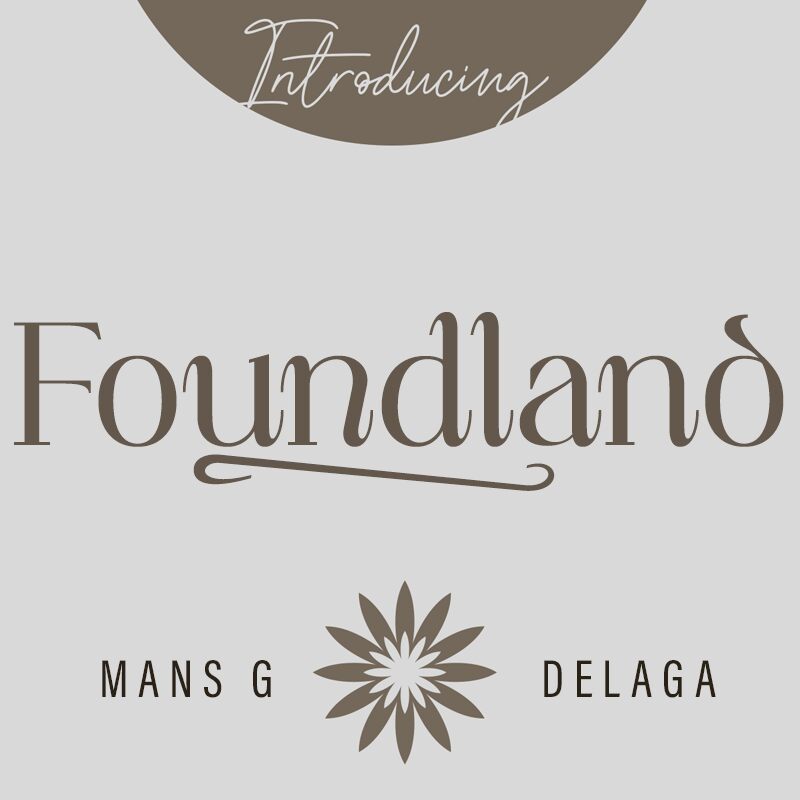
Foundland Italic, a light weight serif font designed by Mans Greback, is perfect for projects that need an elegant and classic look. It's ideal for book covers, restaurant menus, wedding invitations or any other project requiring a touch of sophistication.
User underscore _ to make a swash.
Example: Super_stars